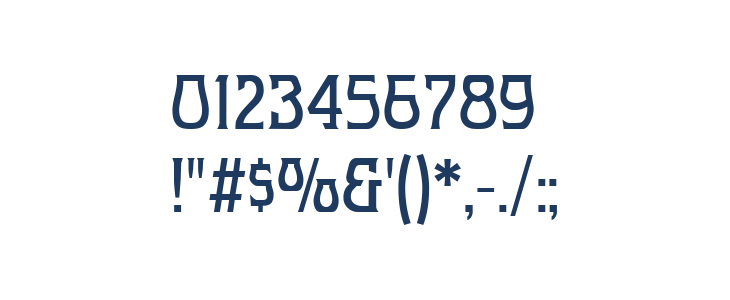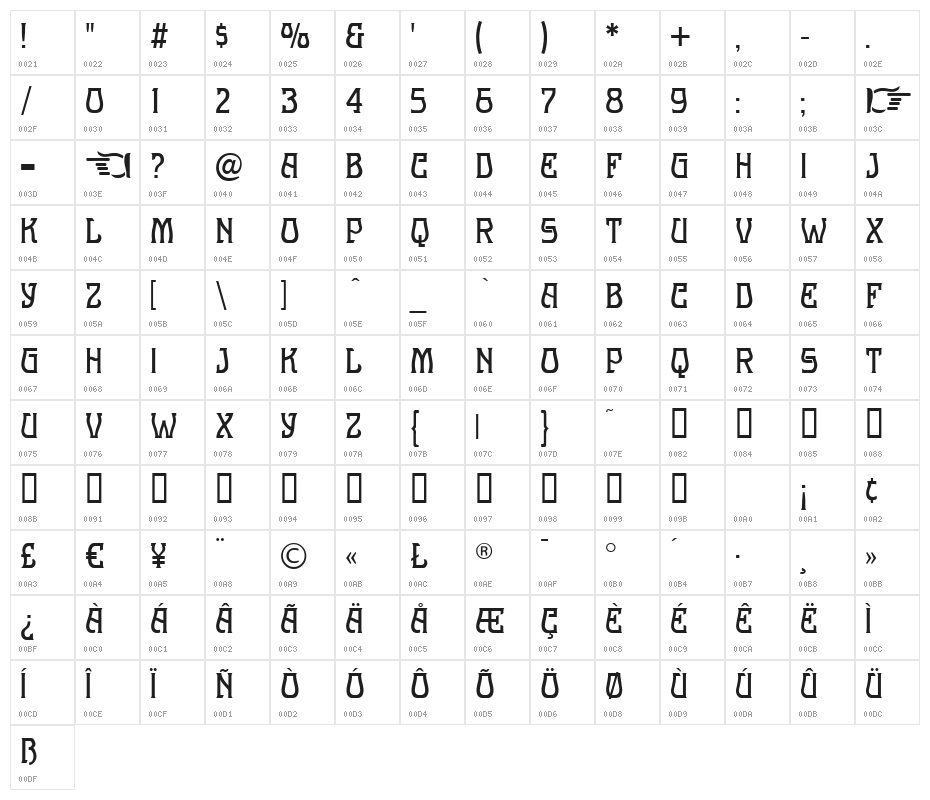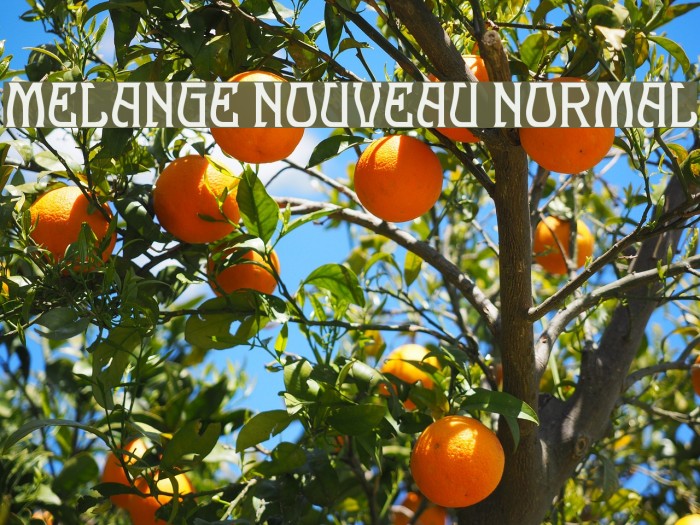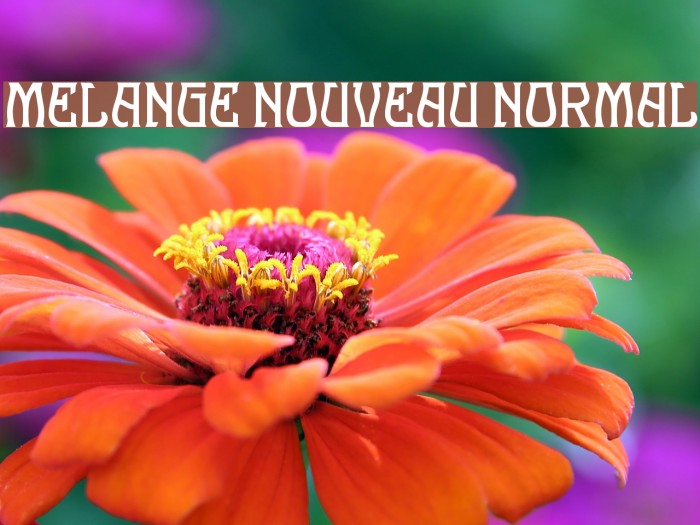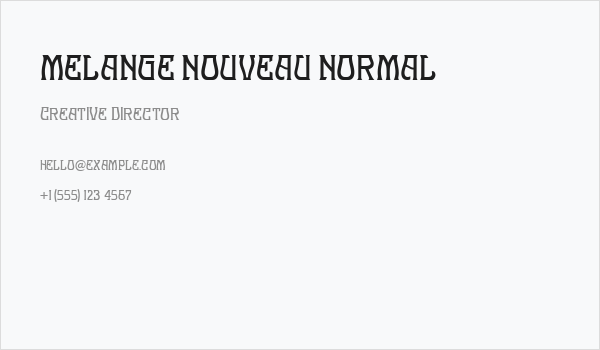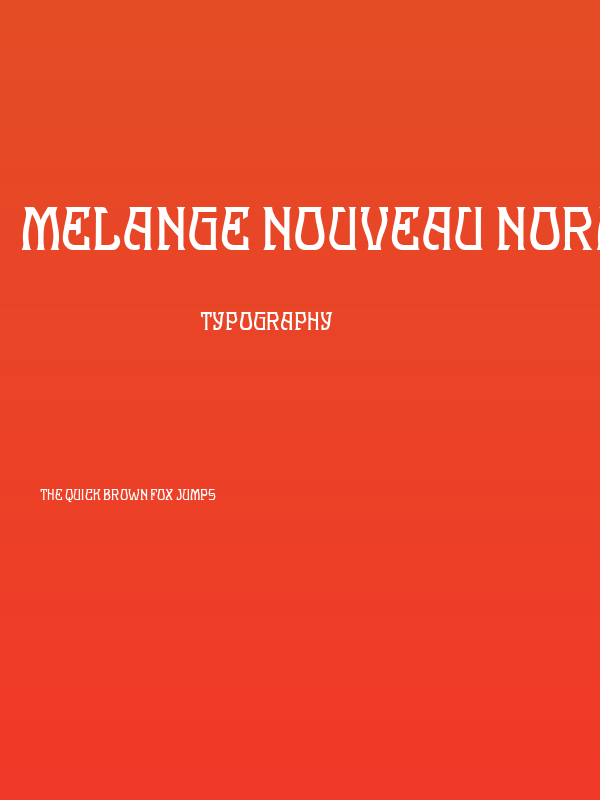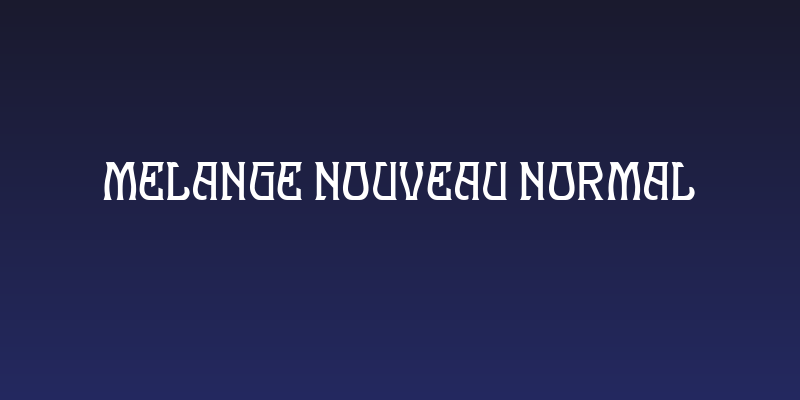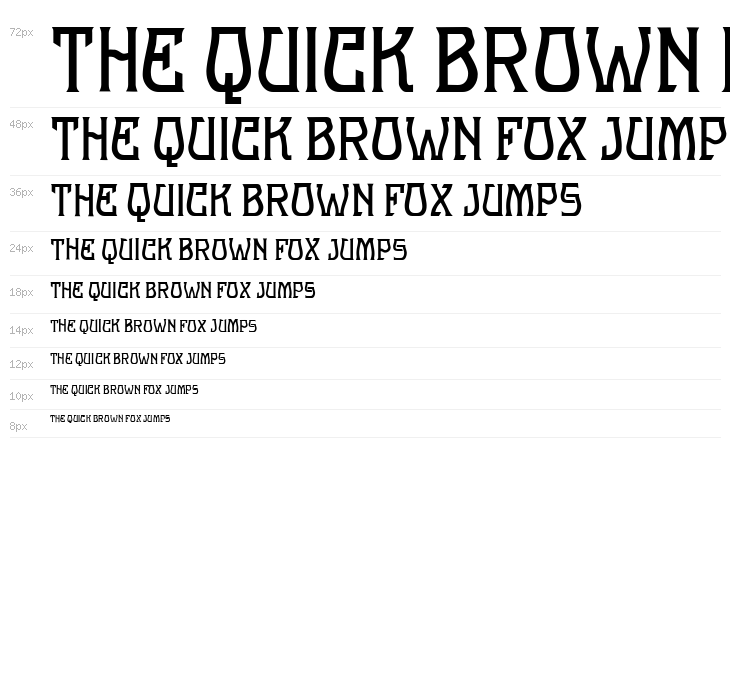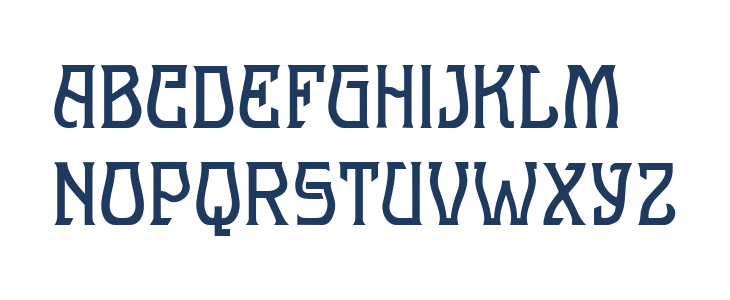
Melange Nouveau Normal Font
Melange Nouveau Normal Description
This font features a bold and striking design with a modern twist on traditional letterforms. The characters are crafted with sharp, angular edges and a distinct geometric influence, giving them a unique and eye-catching appearance. The uppercase letters are particularly prominent, with a strong presence that commands attention. The numerals and special characters maintain this bold style, ensuring consistency across all elements. The font's design is both artistic and functional, making it suitable for a variety of creative projects.